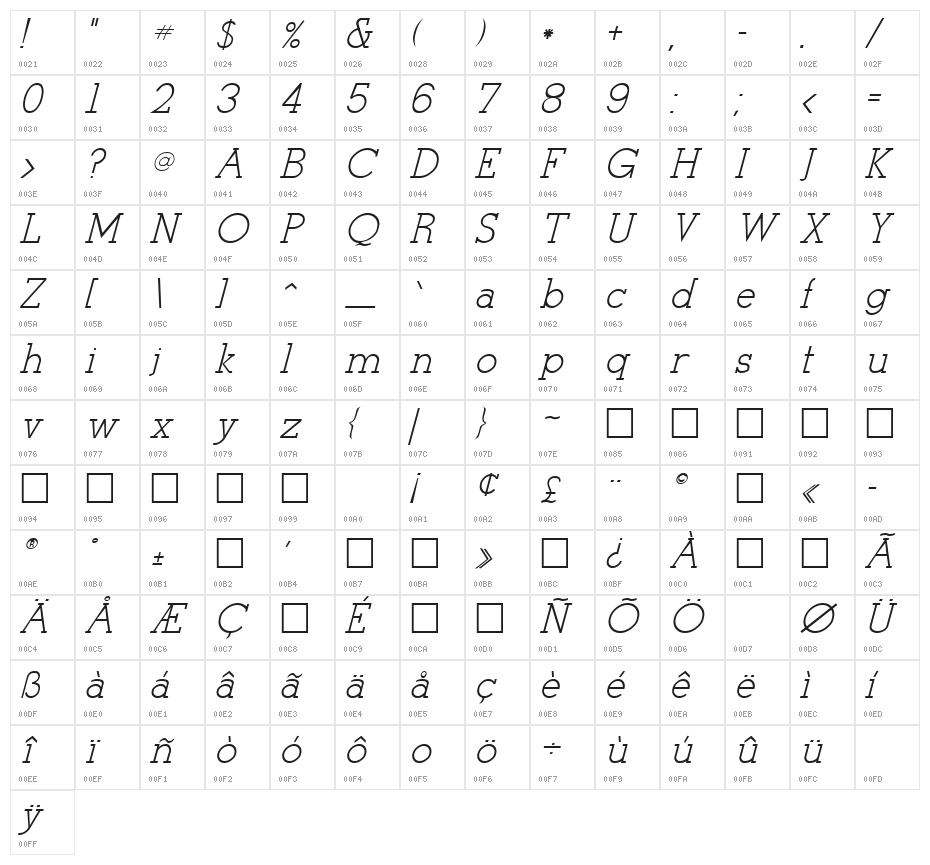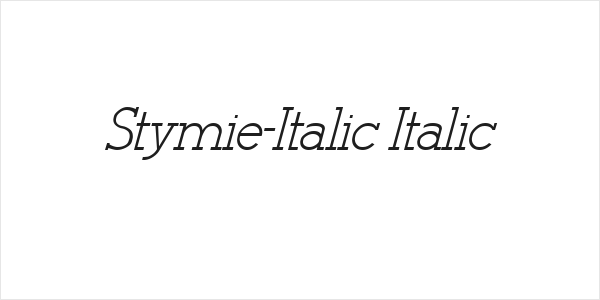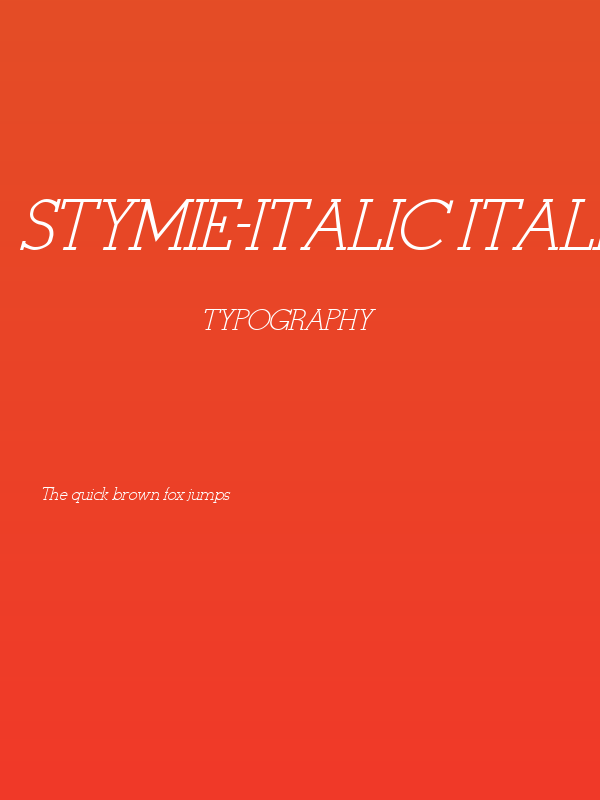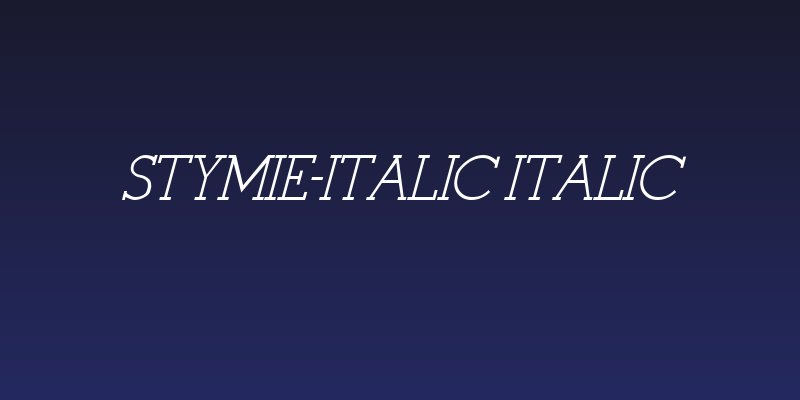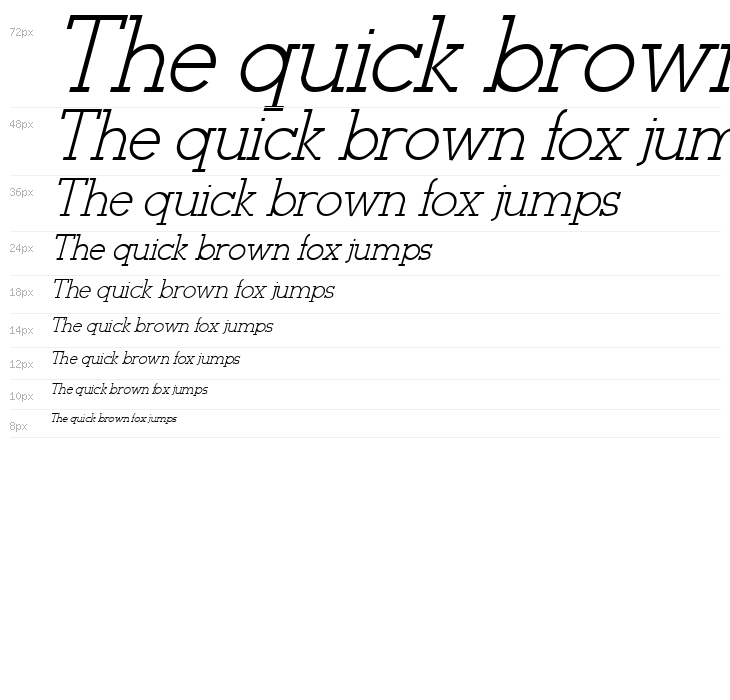
Stymie-Italic Italic Font
Stymie-Italic Italic Description
This font exhibits a classic italic style with a refined and elegant appearance. The characters are slightly slanted, giving a sense of motion and sophistication. The strokes are consistent, with a medium contrast between thick and thin lines, enhancing readability while maintaining a stylish flair. The serifs are subtle, adding a touch of traditional charm without overpowering the overall design. This font is versatile, suitable for both formal and creative projects, offering a timeless aesthetic that can adapt to various contexts.